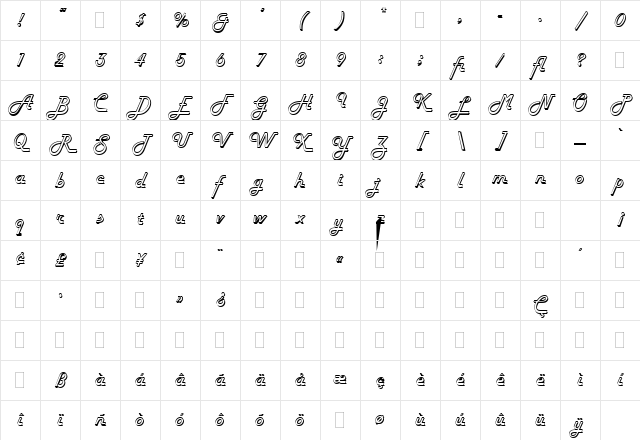
Complete Harlow LET Plain glyph index. Displaying only characters natively supported by Harlow LET Plain font.
Harlow LET is a composed and adaptable typeface that performs quietly and consistently across a wide range of design contexts.